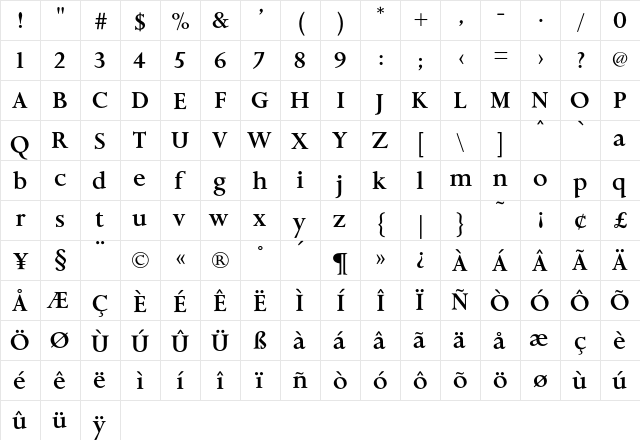
Aries BoldRangingFigs
Design Context for Aries Typeface
Aries offers clean, dependable letterforms without strong stylistic allegiance, making it a practical choice for designers who need flexibility. Its bold stroke weight gives it real presence on the page.